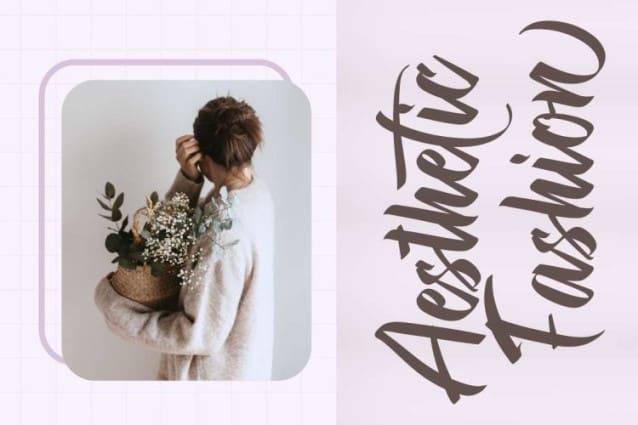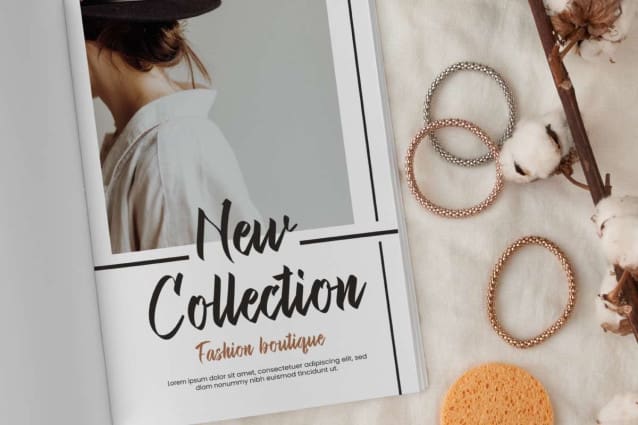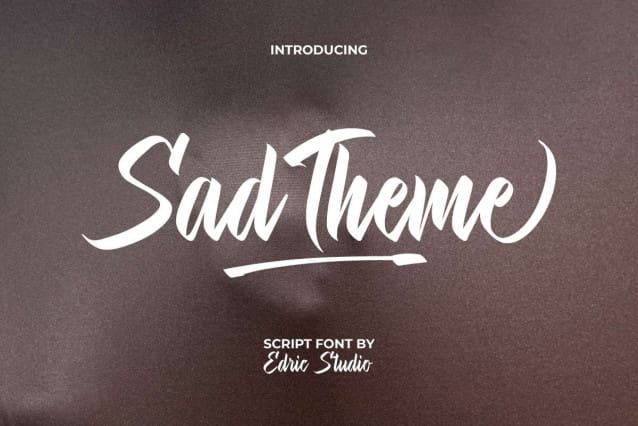
Sad Theme Font
Sad Theme Font is an elegant calligraphy script font that creates a natural form of writing that makes it look trendy and charming in any case, such as billboard, blogs, brochure, cover, custom design, flyer, greeting card, header, label, logo branding, packaging design, poster, screen print, signage, stationery, sticker, title, and more.
Sad Theme Font provides a full set of Basic Uppercase and Lowercase Characters, Numbers, Punctuation, Symbols, Ligature, Alternate, and Swoosh. Even though the concept is in a sad situation, it can always be adapted into a project for whatever industry it is, such as accessories, advertising, boutique, event organizer, fashion, florist, homeware, interior design, pottery, real estate, skincare, spa salon, travel, web designer, wedding, etc.